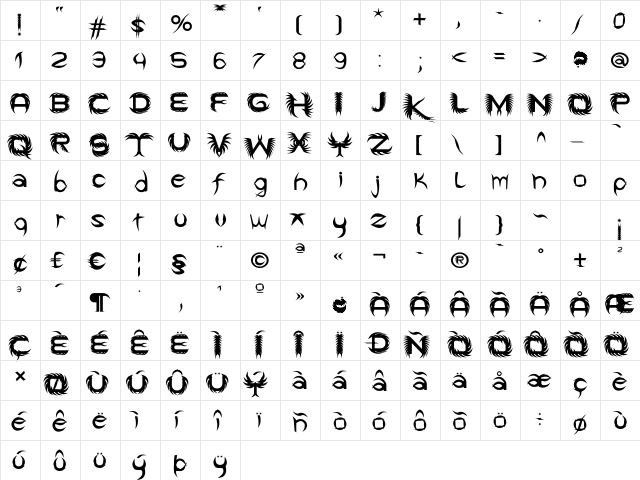
GDS Infinity Regular
| Designer | Biffe |
Design Context for GDS Infinity Typeface
GDS Infinity is a composed and adaptable typeface that performs quietly and consistently across a wide range of design contexts.